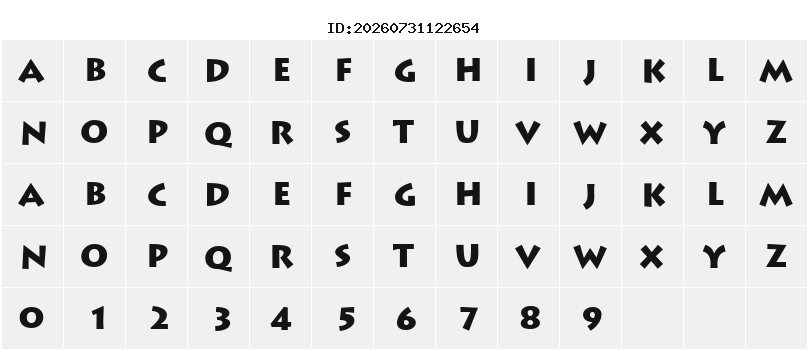
LiddieBlack Preview
• Font Name: LiddieBlack
• Full Font Name: LiddieBlack Regular
• PostScript Name: LiddieBlack
About LiddieBlack.ttf
LiddieBlack.ttf is a modern, elegant sans-serif font designed for ultimate readability and visual harmony. Perfect for branding, headlines, web design, and print materials.